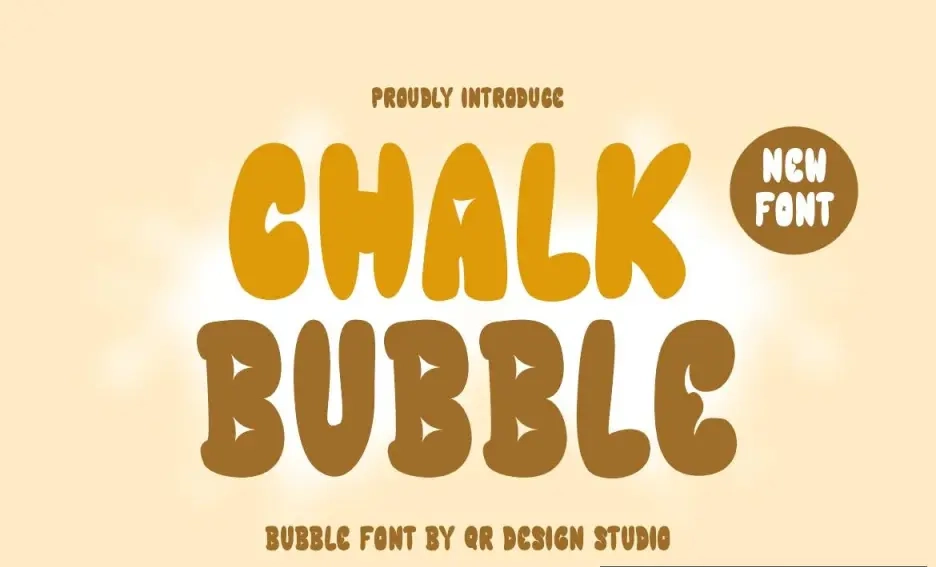
The Chalk Bubble Font is a playful and whimsical typeface that brings a fun, hand-drawn aesthetic to your projects. Perfect for children’s materials, educational content, or any design that aims to convey a light-hearted tone, this font adds a unique touch to your branding and promotional materials.
- Unique chalk-like appearance
- Uppercase and lowercase letters
- Numerals and punctuation included
- Multiple weights for versatile design options
- Styles: Regular, Bold
- Ideal for logos, branding, and marketing materials
- Great for web design and digital applications
- Use in print projects such as posters, flyers, and children’s books